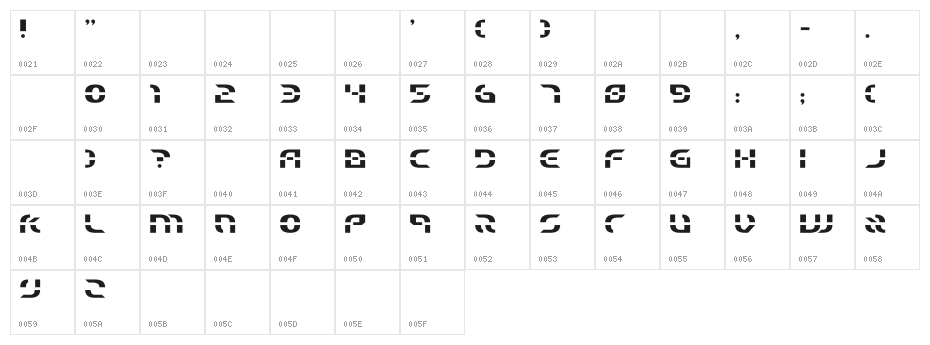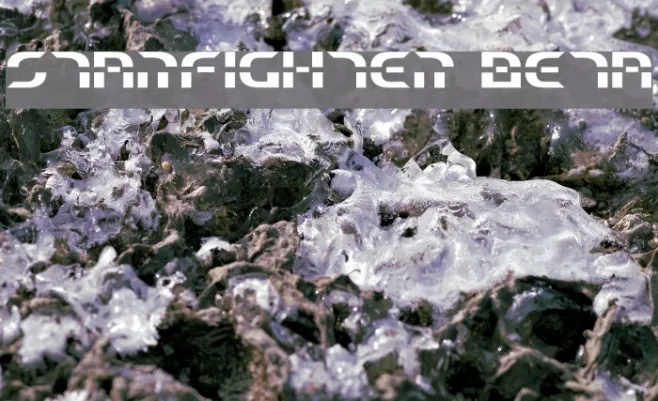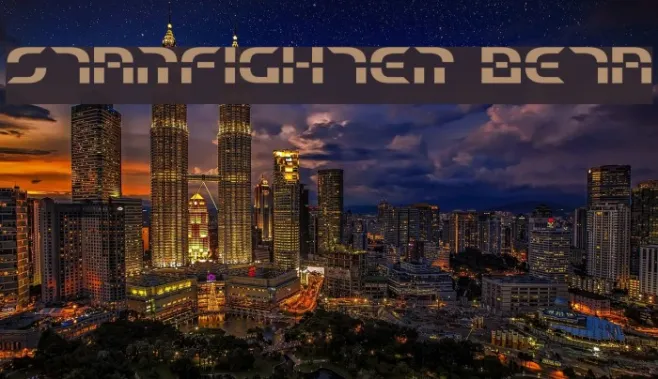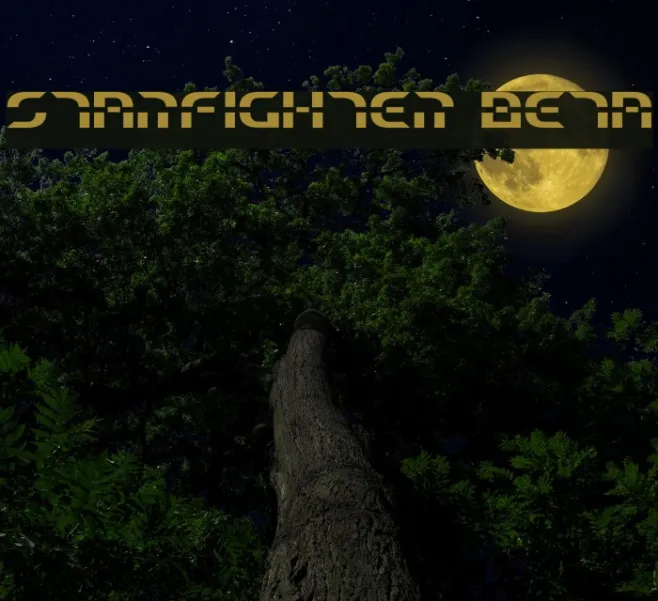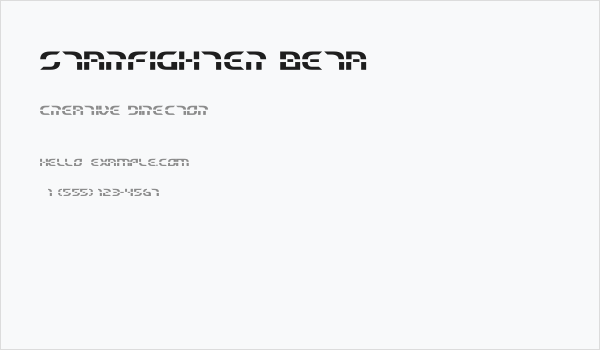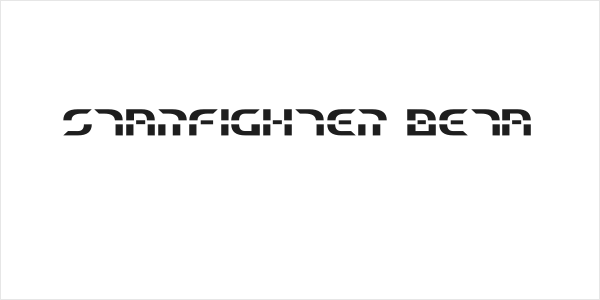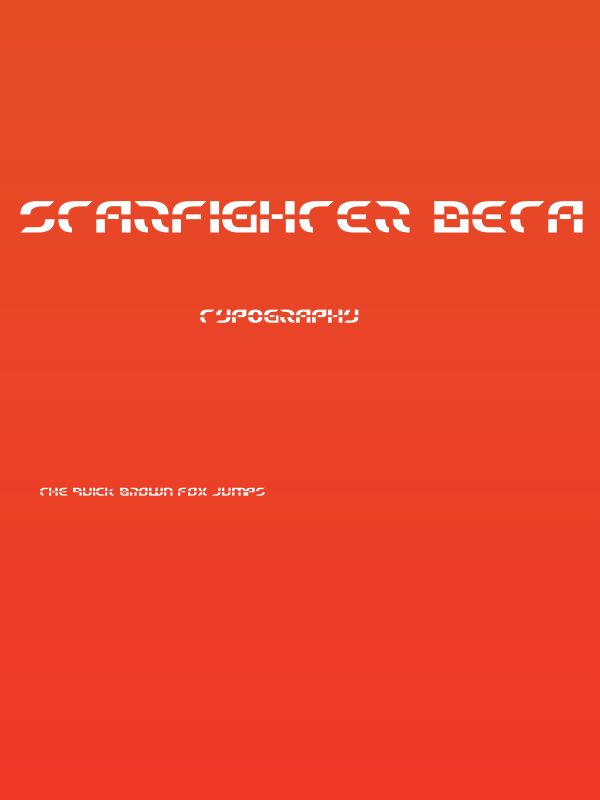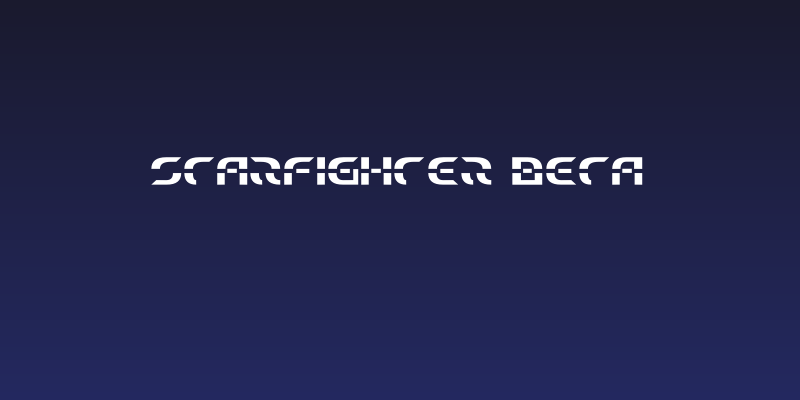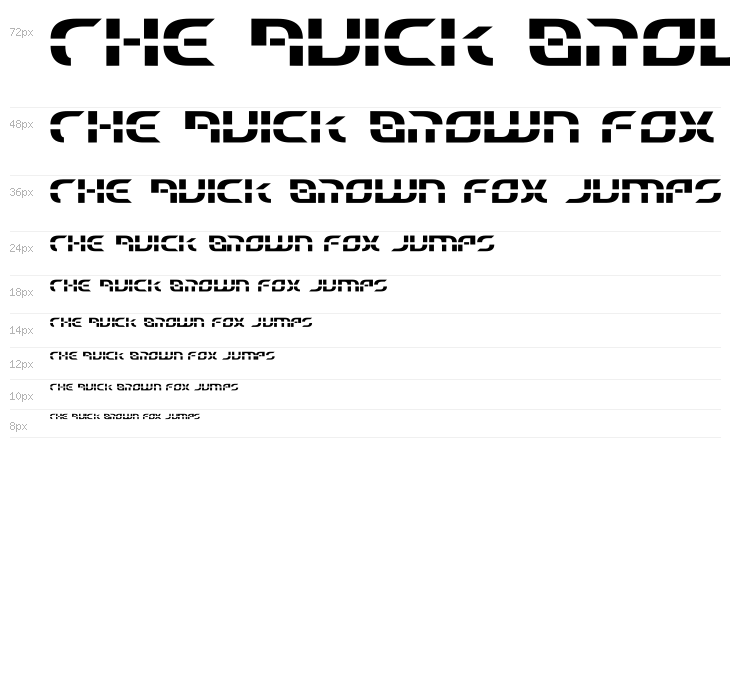
Starfighter Beta Font
Starfighter Beta Description
This futuristic and bold typeface features a unique design with geometric shapes and sharp angles, creating a distinct and modern appearance. The characters are constructed with a combination of solid and cut-out sections, giving them a digital and high-tech feel. The uppercase and lowercase letters maintain a consistent style, with the lowercase mirroring the uppercase in form. Numbers and special characters follow the same design principles, ensuring uniformity across the font. This typeface is ideal for projects that require a modern, sci-fi, or tech-oriented aesthetic.
| Proposed Projects | Ideal for sci-fi movie posters, video game titles, tech company logos, and futuristic-themed designs. |